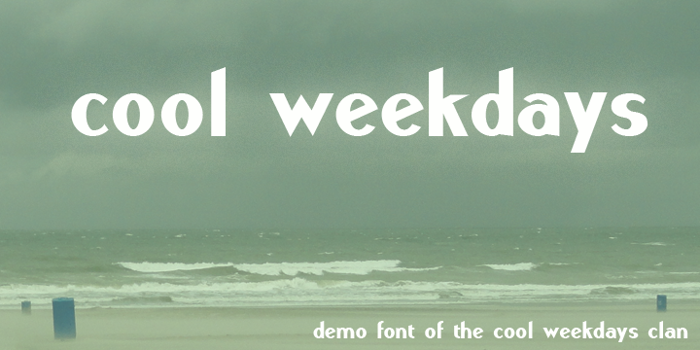
Cool Weekdays Demo Font
This font is a demo version of my latest font creation's bold one based on "poor weekdays", for the rest of the clan or full version please visit http://www.myfonts.com/fonts/myhandwritings/cool-weekdays/ or contact me directly.